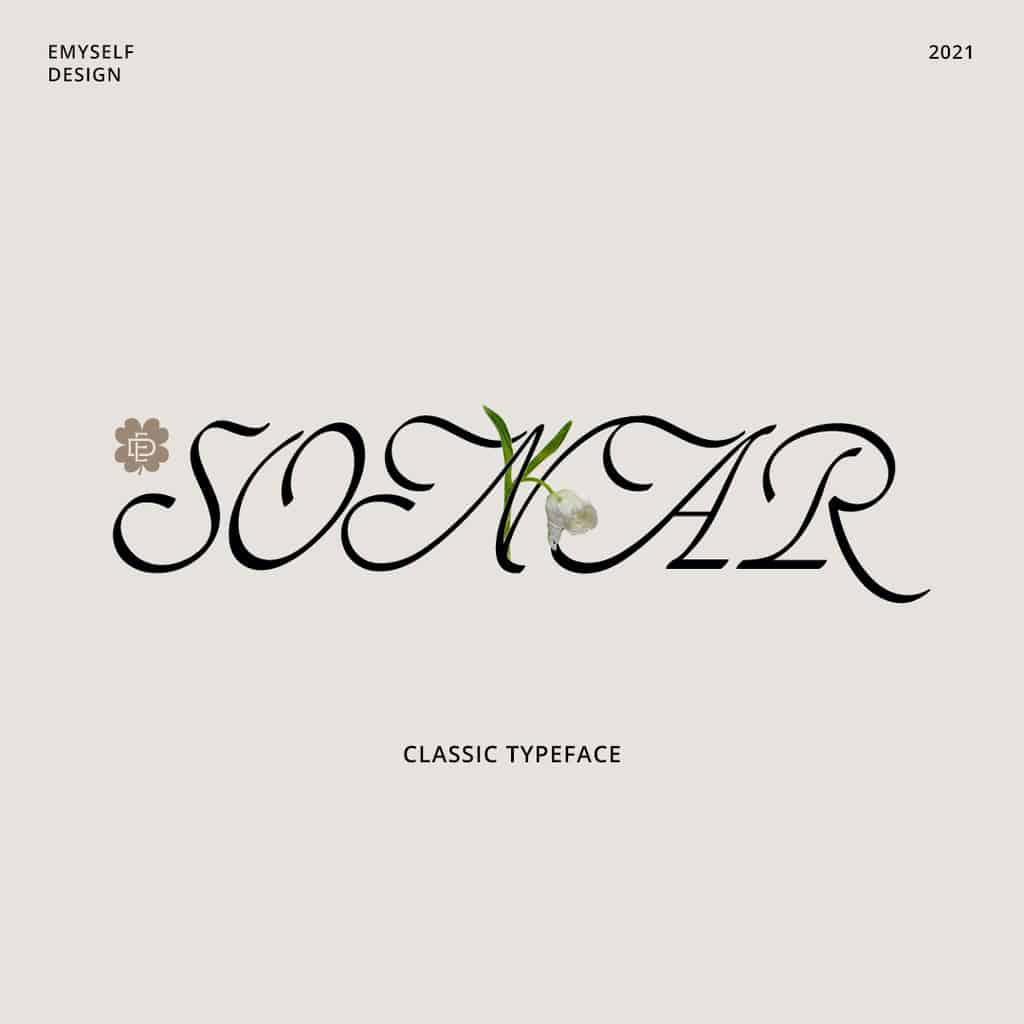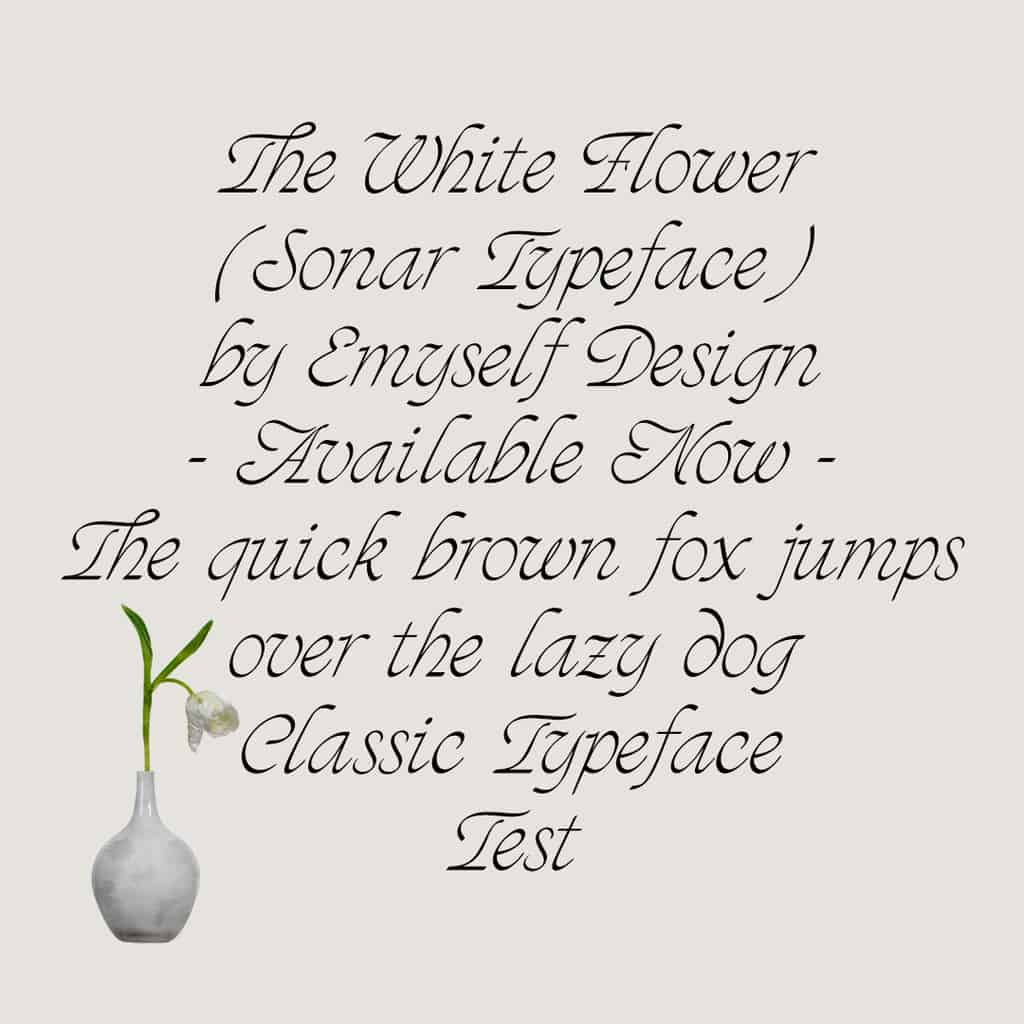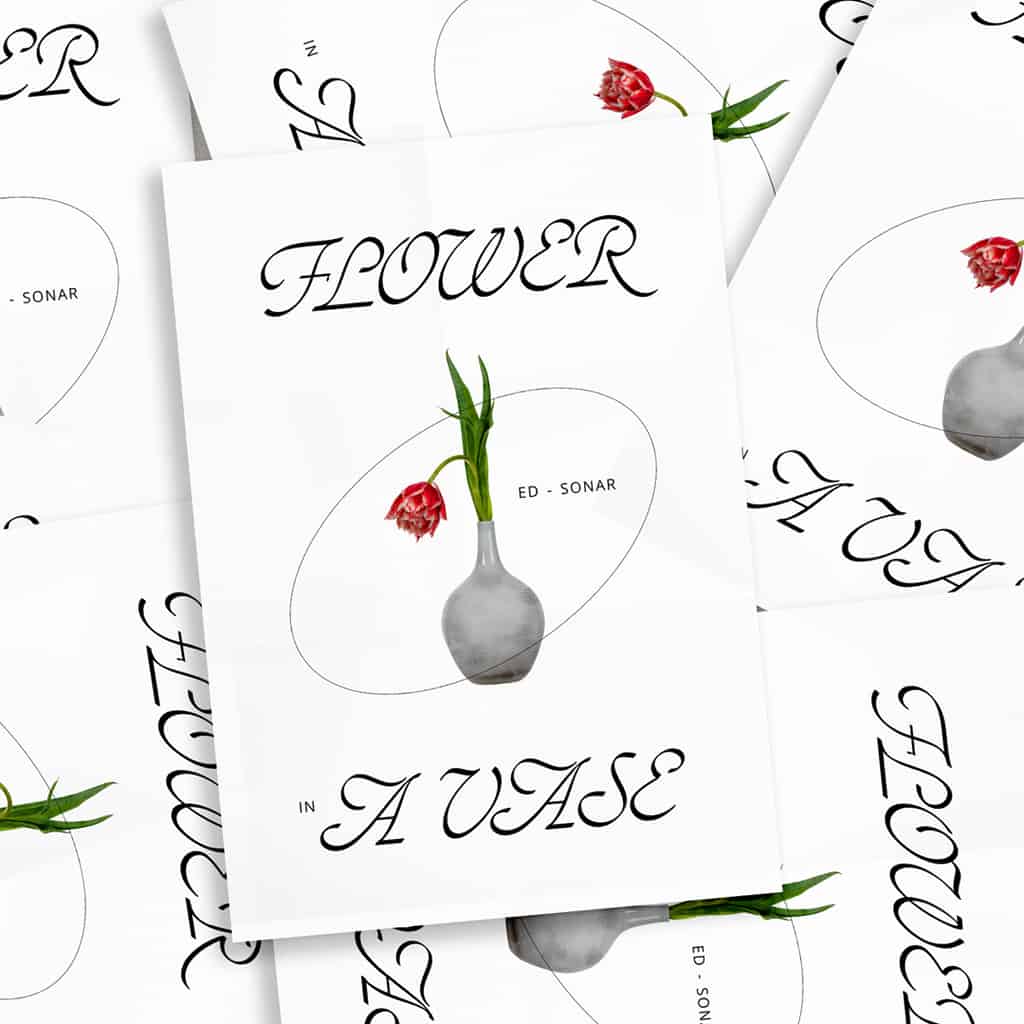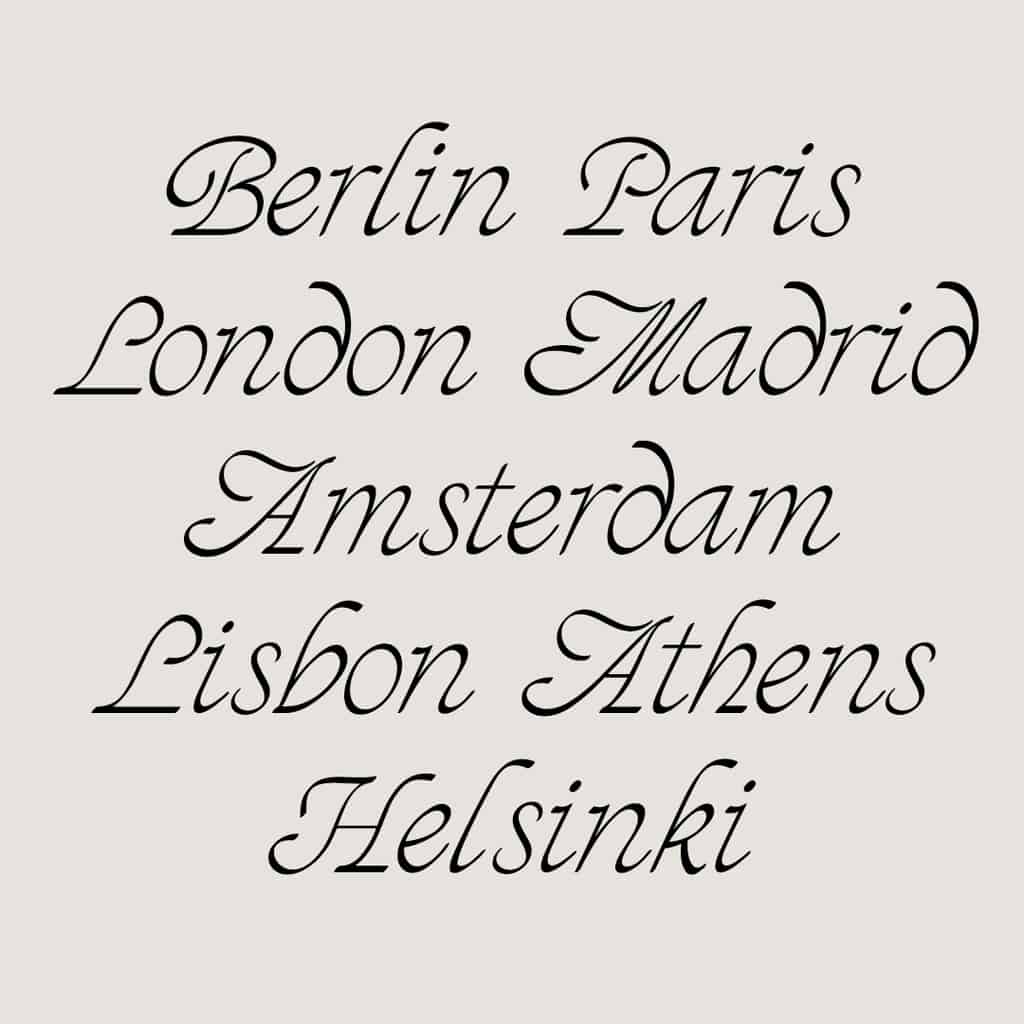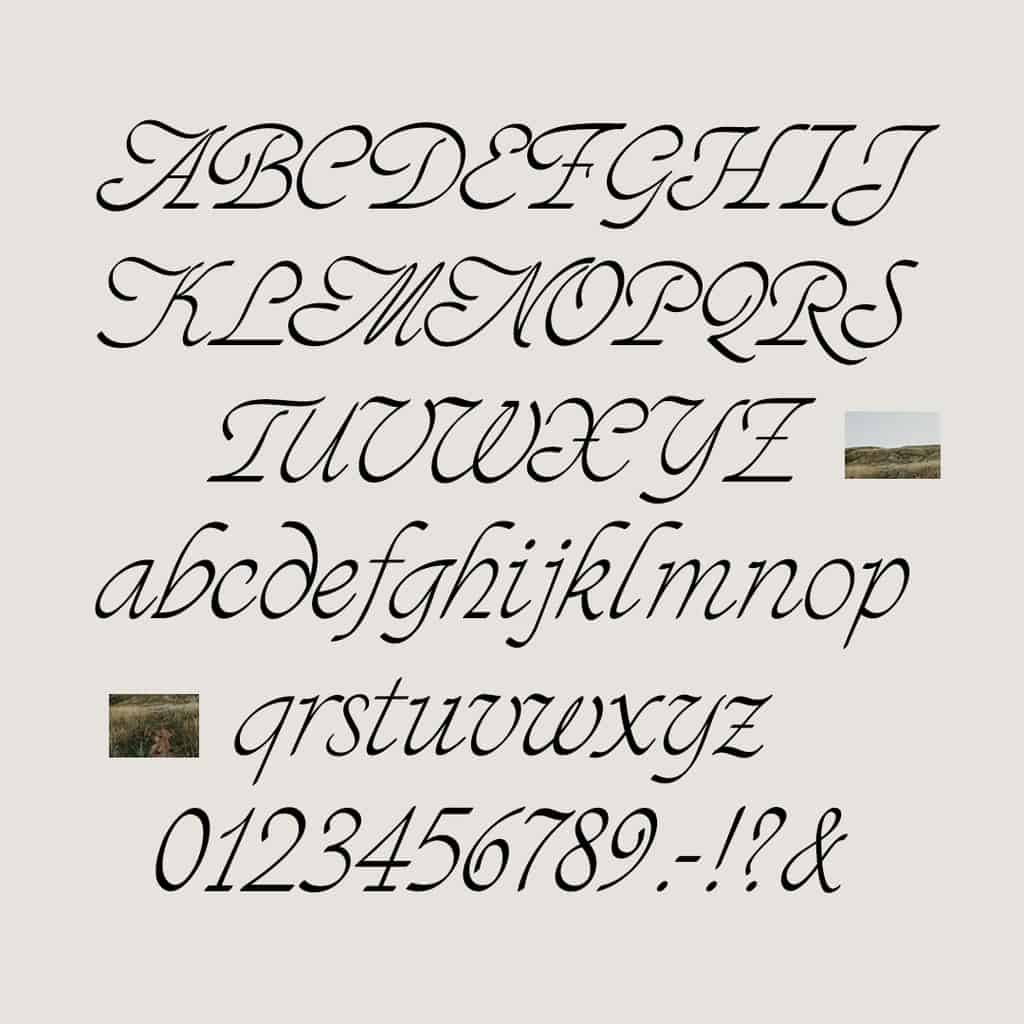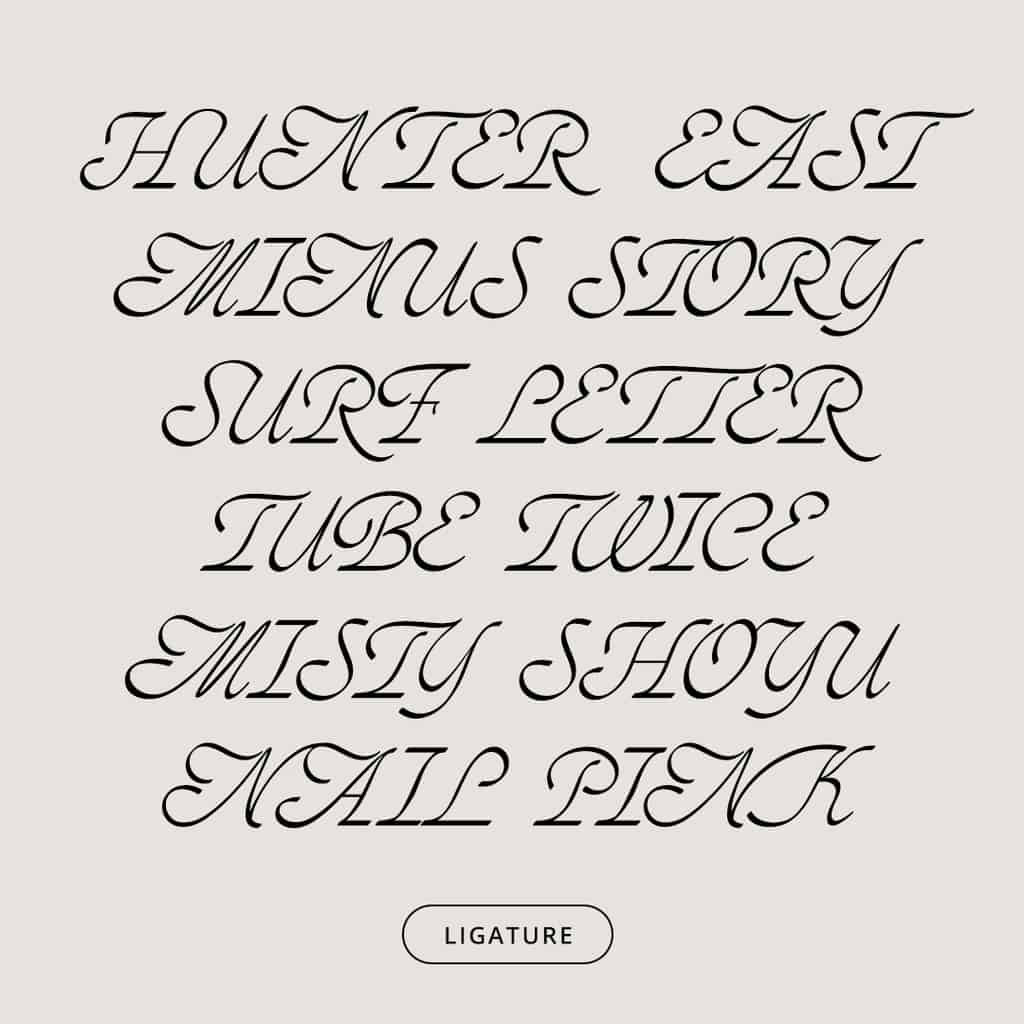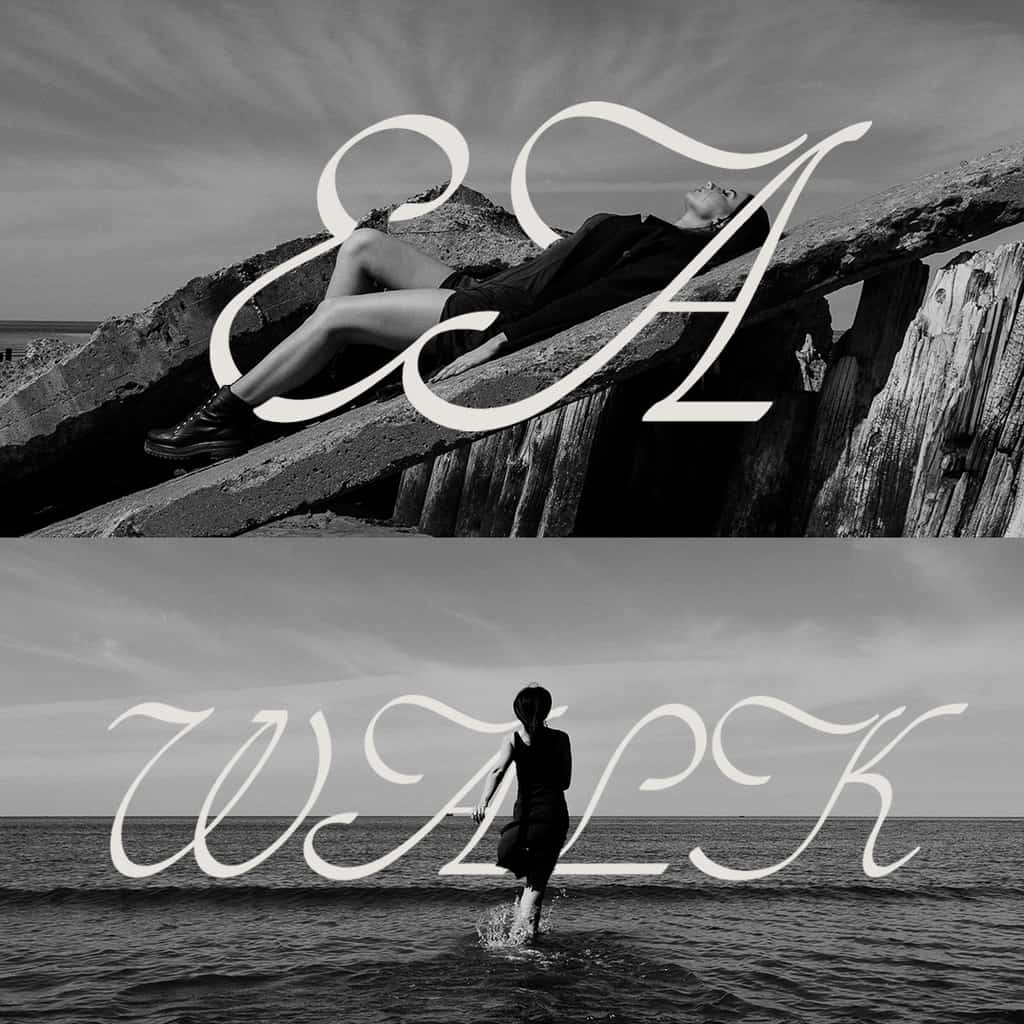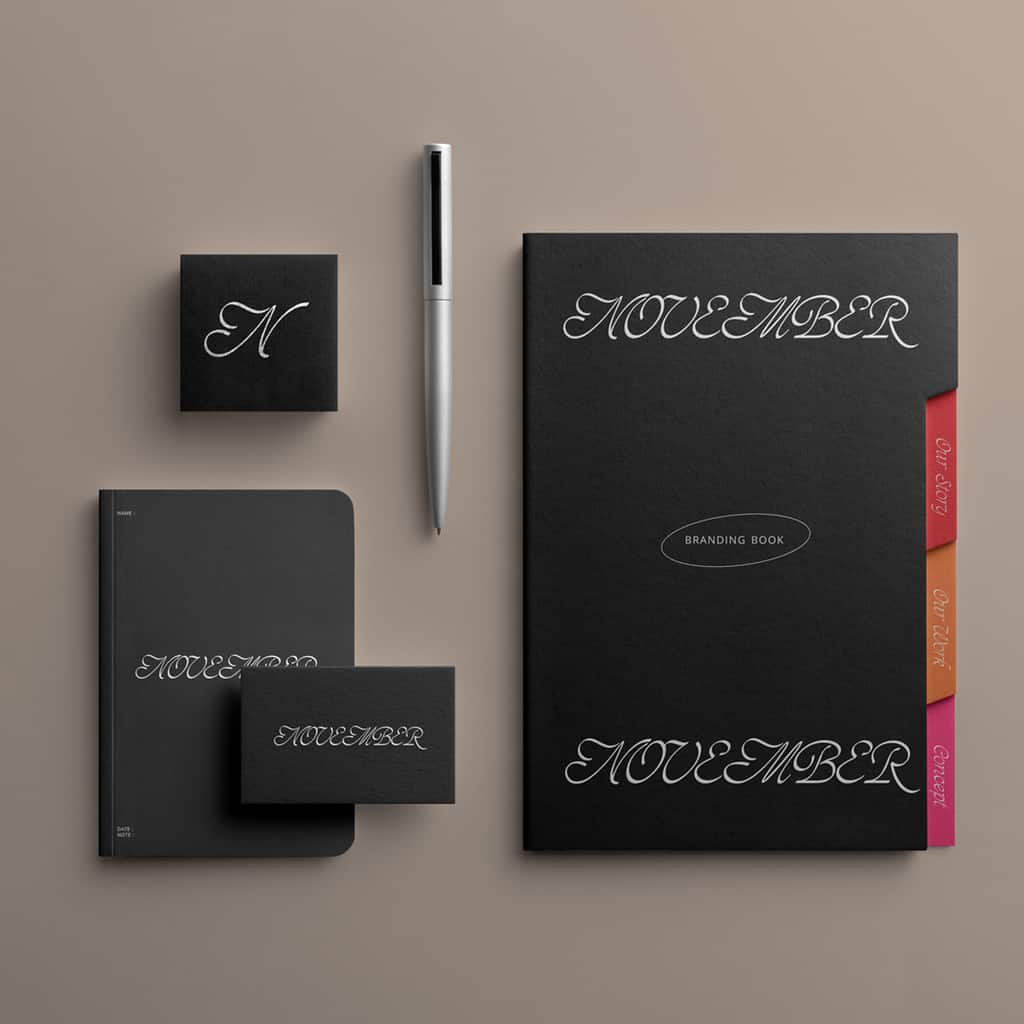
ED Sonar
ED Solar is an elegant script font that combines a classic italic script design with a clean, contemporary finish. Its refined appearance is complemented by a rich set of features, including stylistic alternates and ligatures.
ED Sonar
ED Solar is an elegant script font that combines a classic italic script design with a clean, contemporary finish. Its refined appearance is complemented by a rich set of features, including stylistic alternates and ligatures.